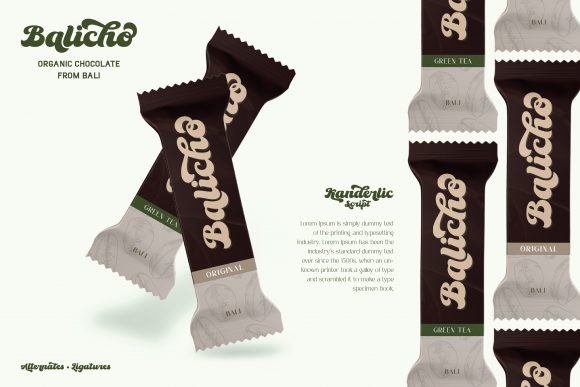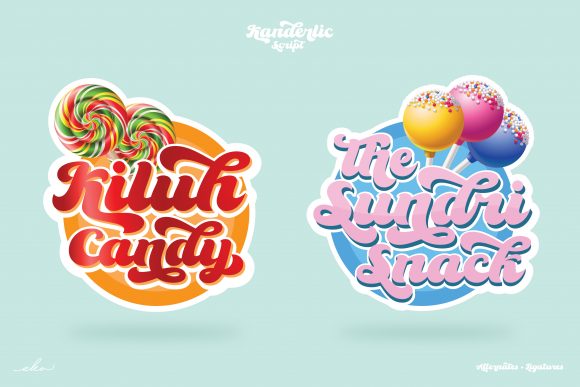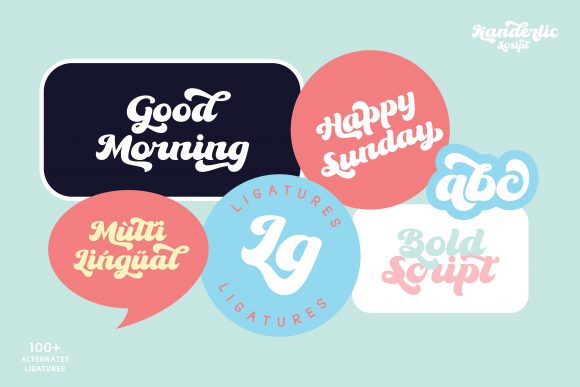
Introduction to Kanderlic Font
As designers, we’ve all been there – staring at a blank canvas, trying to conjure up the perfect idea for a project. The cursor blinks, the clock ticks, and suddenly, a spark of creativity ignites. For many, this moment is the thrill of the design process. And for those seeking a stylish touch, the Kanderlic Font is about to become your new best friend.
With its gorgeous, flowing, and retro styled display, the Kanderlic Font is a game-changer for designers looking to elevate their creative projects. Whether you’re working on a logo, advertisement, or infographic, this high-quality font is sure to add a touch of sophistication and nostalgia to your designs. And the best part? It’s available for free download, making it an essential resource for any design enthusiast.
Key Features of Kanderlic Font
- High-quality, elegant script font perfect for creative projects and design resources.
- Transparent background and customizable, allowing for seamless integration into various design elements.
- Includes a range of font sizes, from 12pt to 72pt, to accommodate various design needs.
- Resolution: 300 DPI, ensuring crisp and clear typography in high-resolution designs.
- Unique characteristics include swashes, flourishes, and ornate details, making it perfect for adding a touch of elegance to any design.
Honest Review: Kanderlic Font
I recently stumbled upon the Kanderlic Font, and I must say it’s a great addition to any design resource library. This free download is perfect for those looking to add a unique touch to their creative project.
What works well: ✨ The Kanderlic Font has a modern and sleek design, making it ideal for digital products and websites. The transparent background allows for seamless integration with any background image or color. The font is also highly legible, making it perfect for body text.
Some potential limitations: ⚠️ The Kanderlic Font is a display font, which means it’s not ideal for long blocks of text. Additionally, the font is only available in a few weights, which may limit its versatility.
Overall impression: I’m impressed with the Kanderlic Font’s high quality and unique design. It’s a great resource for designers looking to add some personality to their projects. While it may have some limitations, I think it’s well worth the free download.
Pros and Cons:
- ✨ Modern and sleek design
- ✨ Highly legible
- ⚠️ Limited to display font use
- ⚠️ Only a few weights available
For optimal results, use the Kanderlic Font on a transparent background to achieve a seamless look. This font is ideal for creative projects, such as logos, brochures, and business cards.
Lato Font is a modern sans-serif typeface designed for use in digital media, including websites, mobile apps, and creative projects. It’s available for free download and features a transparent background, making it perfect for overlaying text on images. Lato Font is ideal for designers seeking a clean and elegant font that can be used in various design resources.
Compared to Kanderlic Font, Lato Font has a more sophisticated and refined design, making it suitable for high-end creative projects. It’s an excellent choice for designers seeking a font that can add a touch of sophistication to their work.
Is the Kanderlic Font suitable for use in print or digital media?
The Kanderlic Font is a high-resolution font, making it suitable for use in both print and digital media. However, for optimal results in print, we recommend using a font size of at least 12 points and a resolution of 300 DPI or higher. In digital media, the font will render beautifully across a range of devices and platforms.